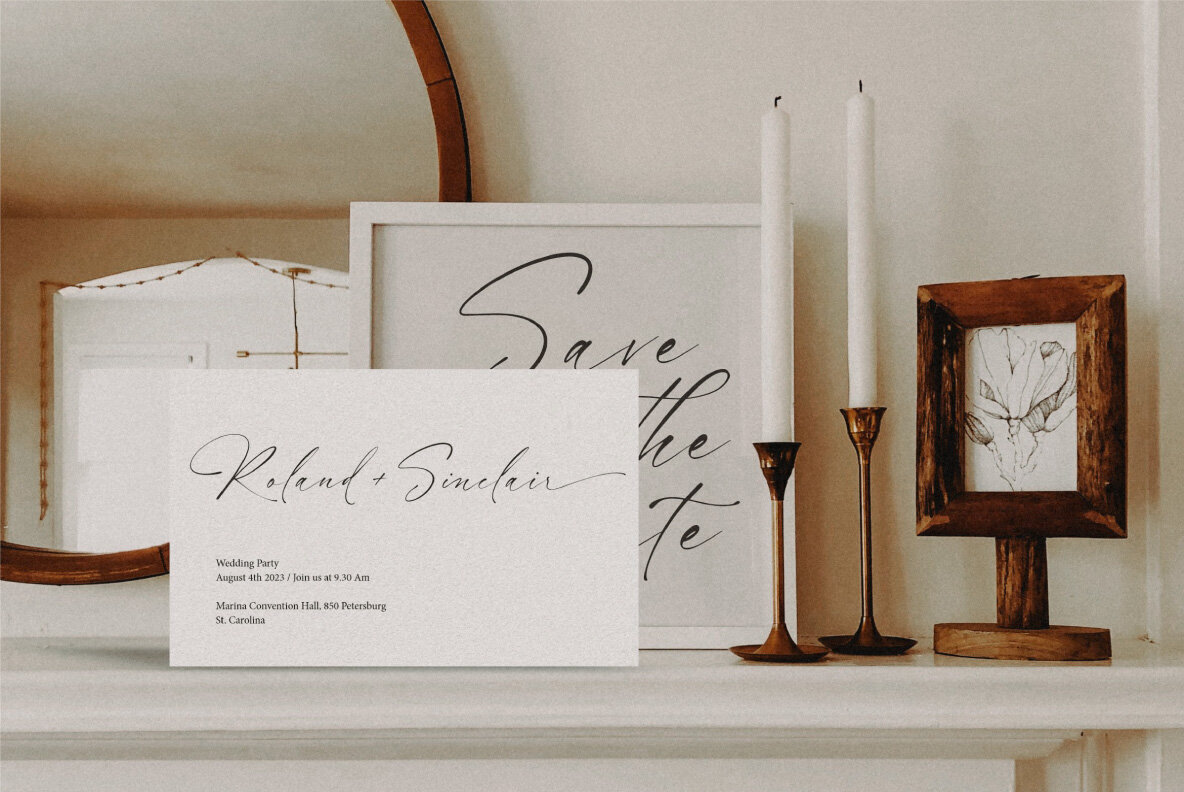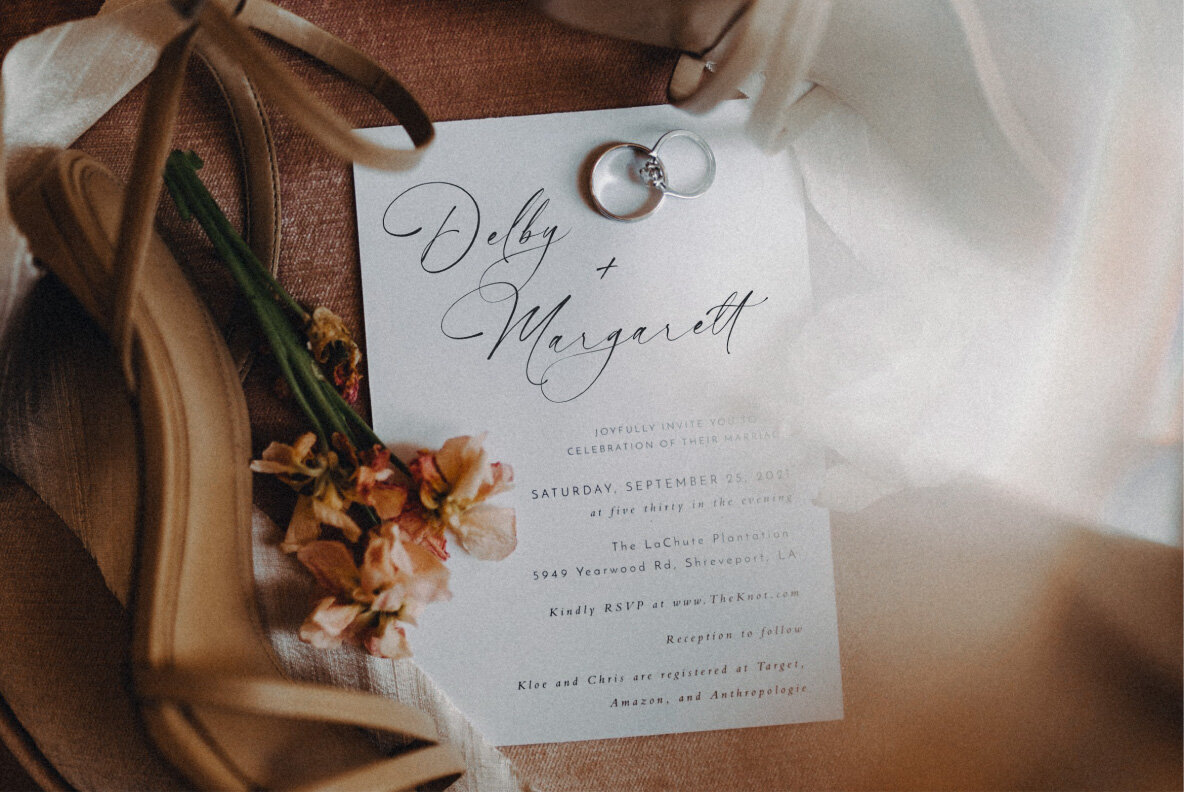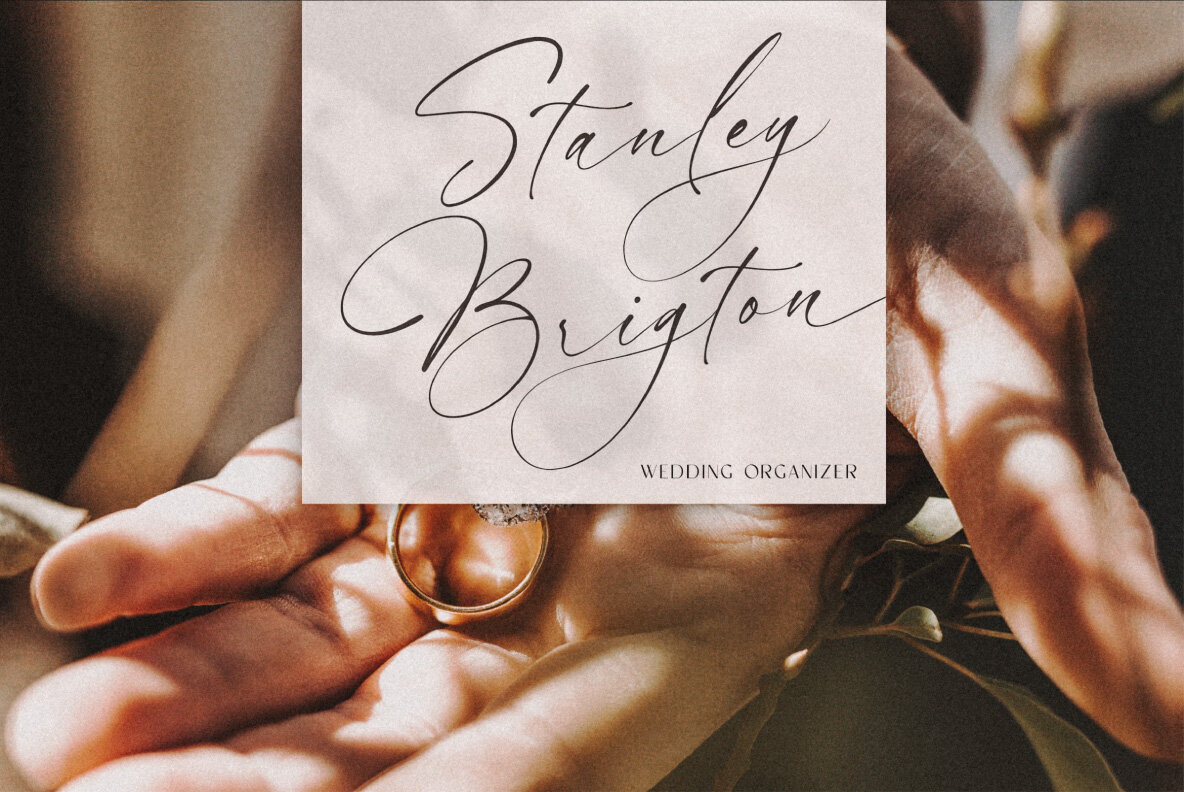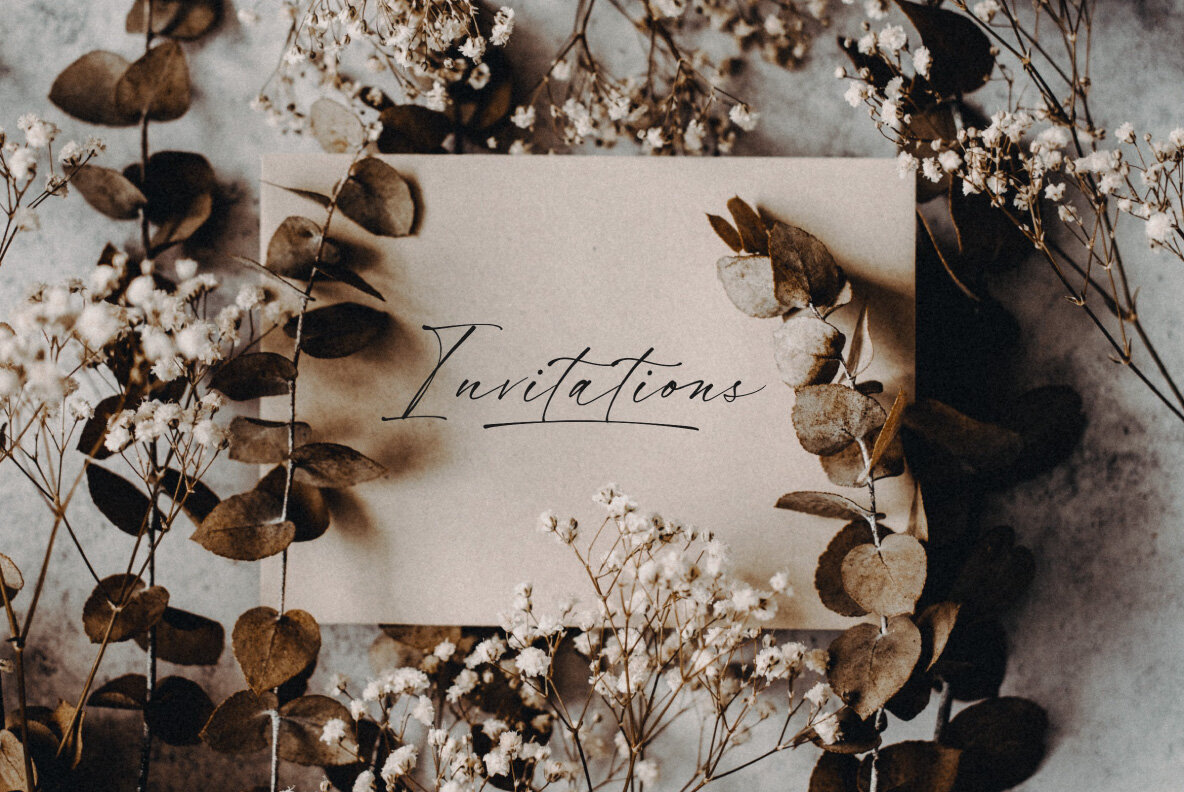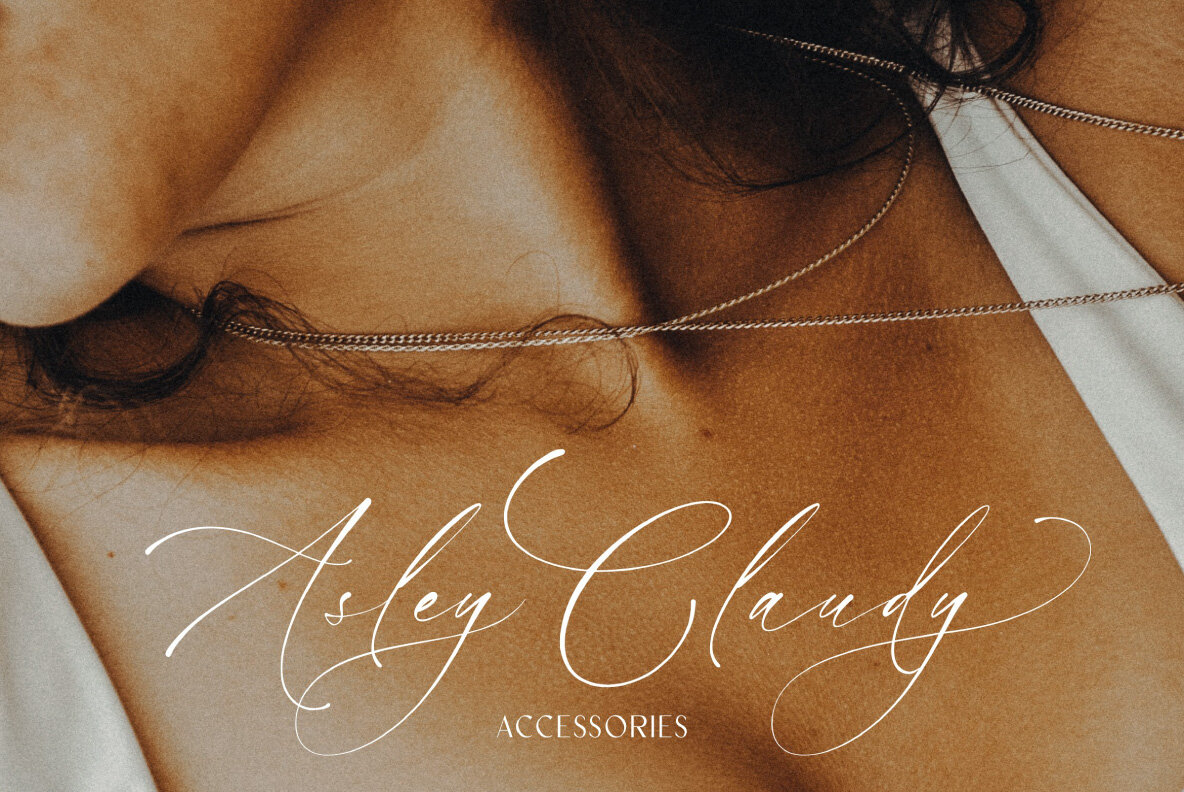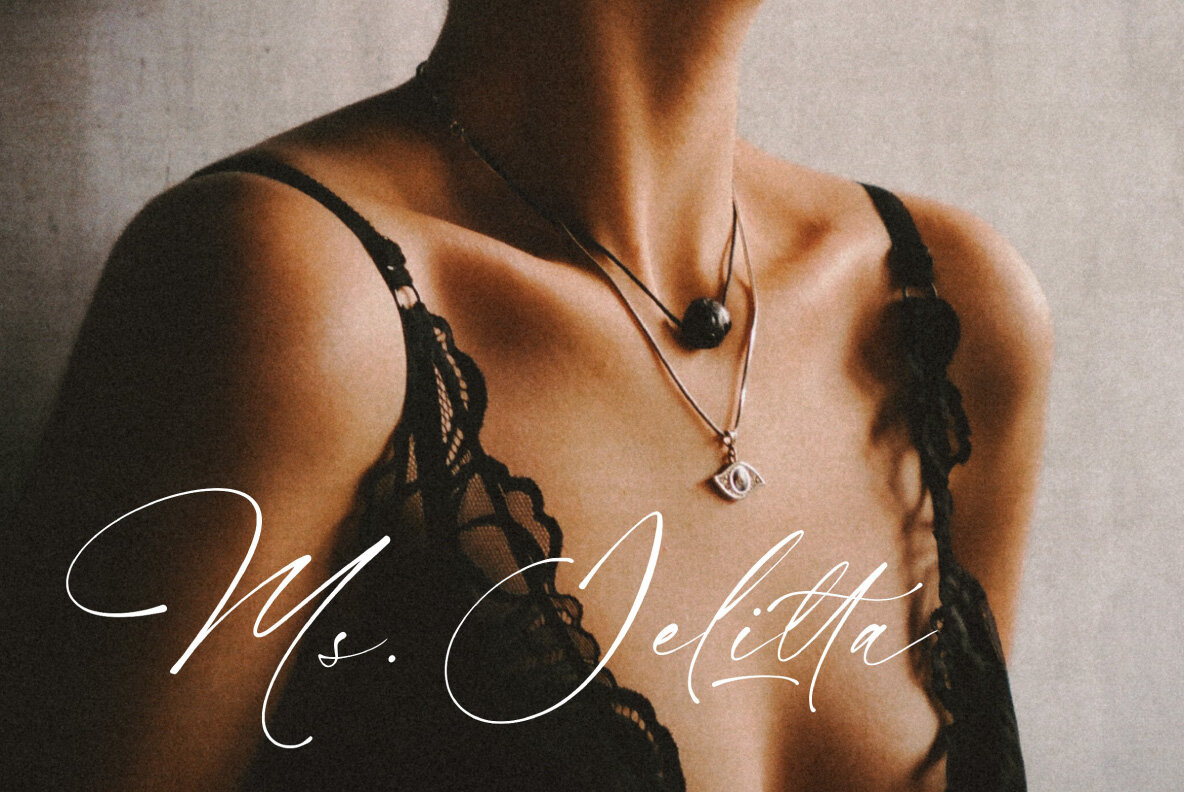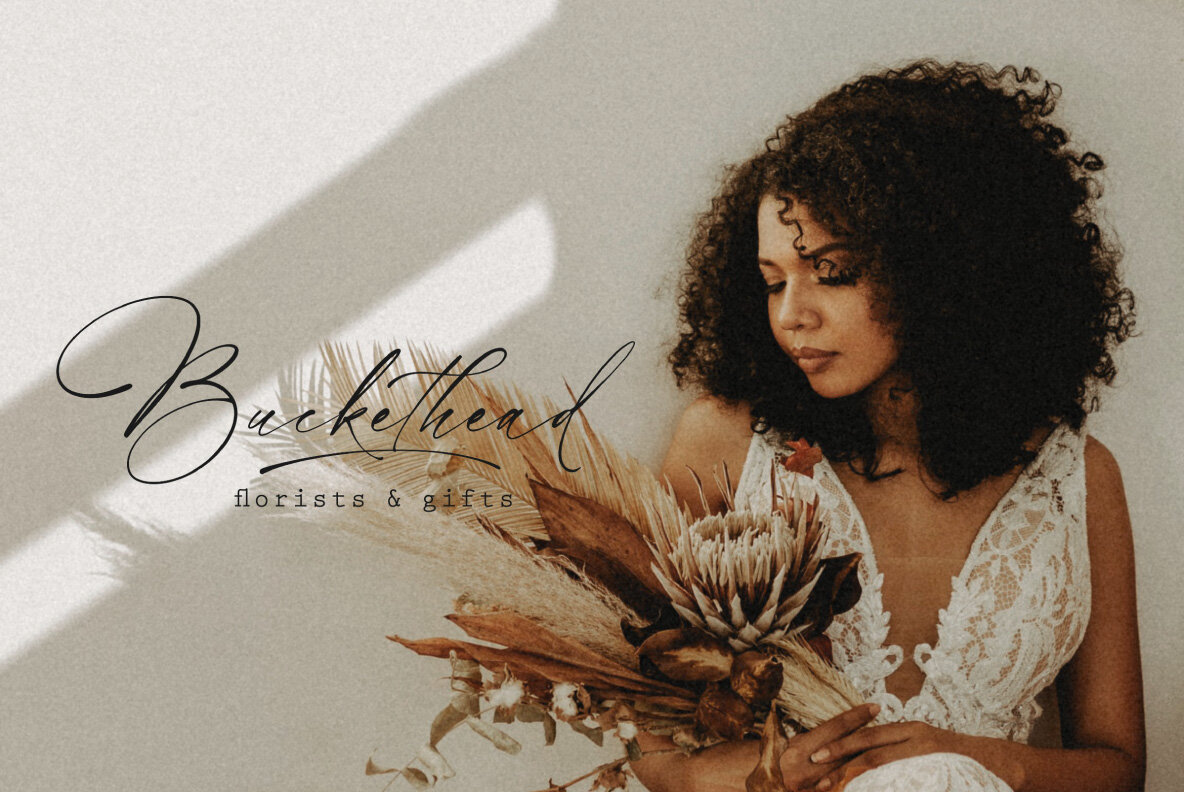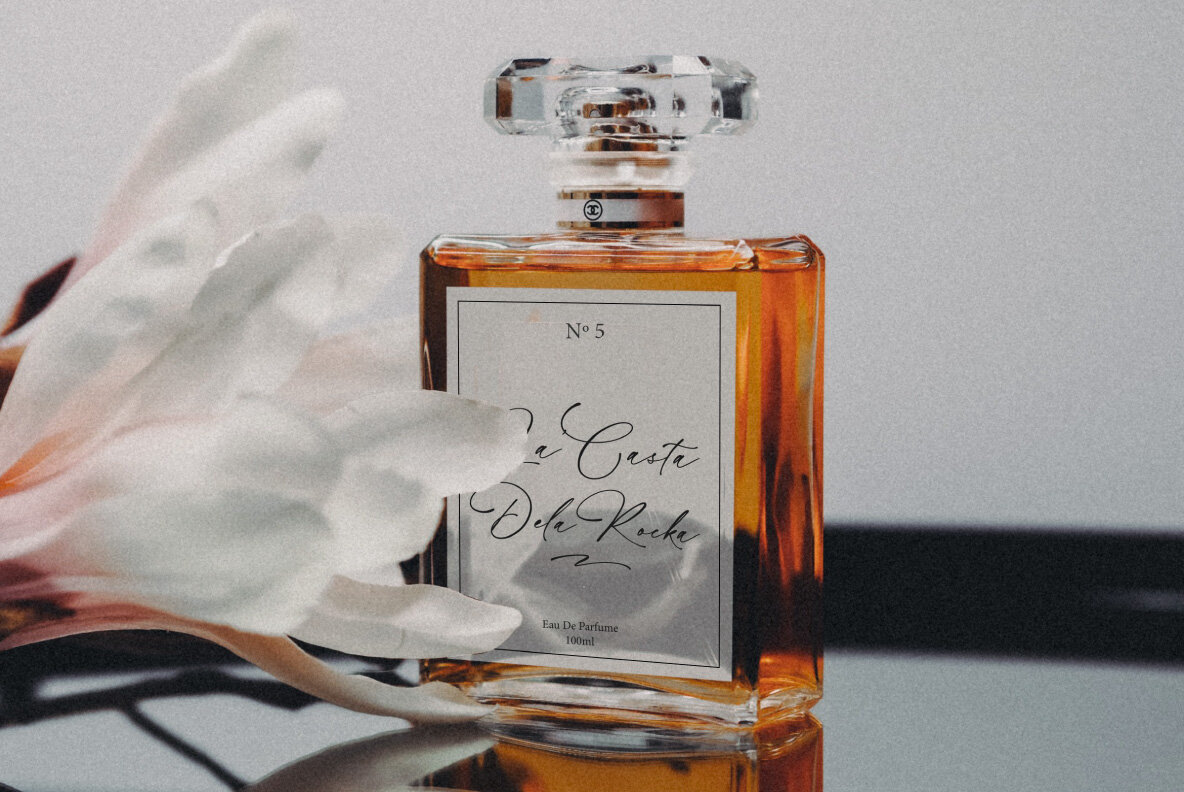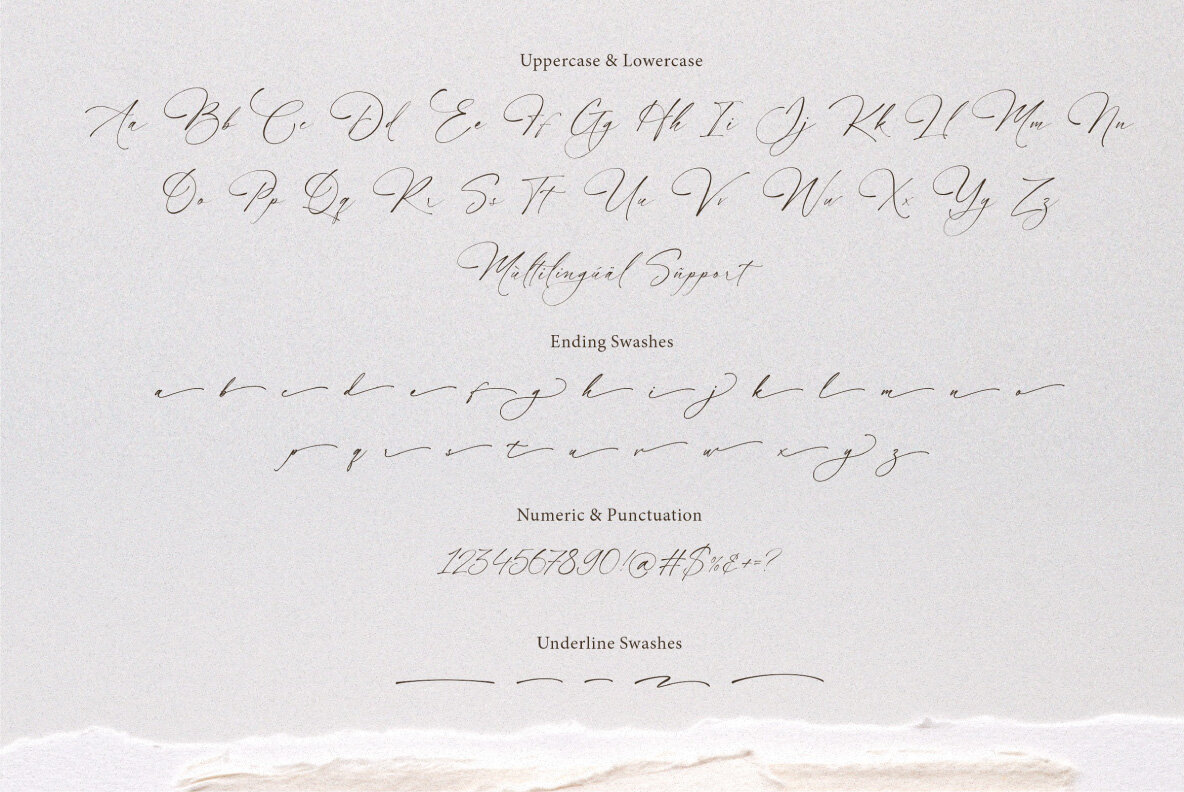
Hathaway Font
Hathaway Regular
When you need a font that's modern, stylish and has an elegant touch to it? This is the perfect choice. With its natural flow of letters; Hathaway can add creativity into your designs such as merchandising items or T-shirts!
- Ending Swashes
- Numeral & Punctuation.
- Ligature.
- Multilingual Support.